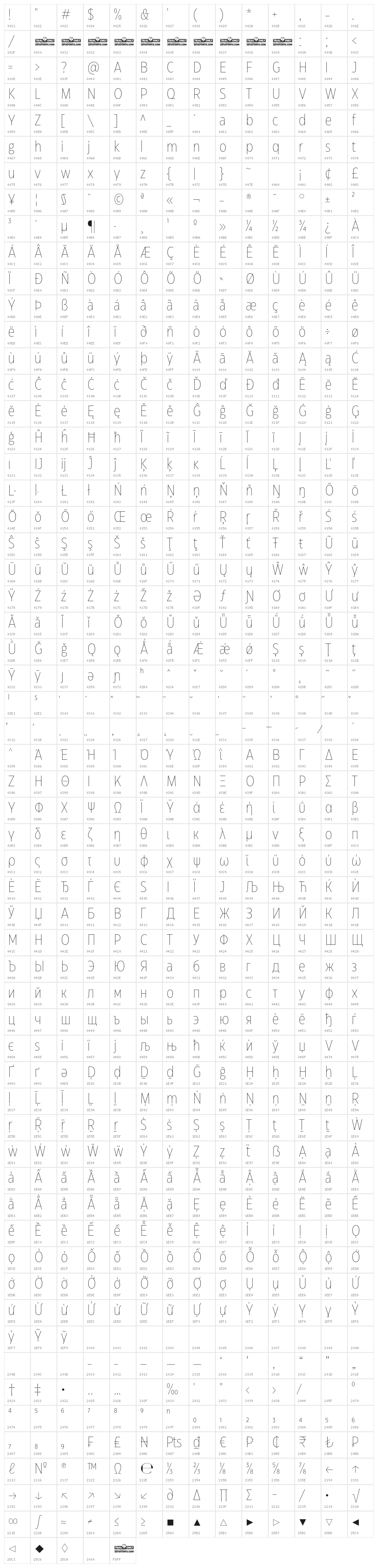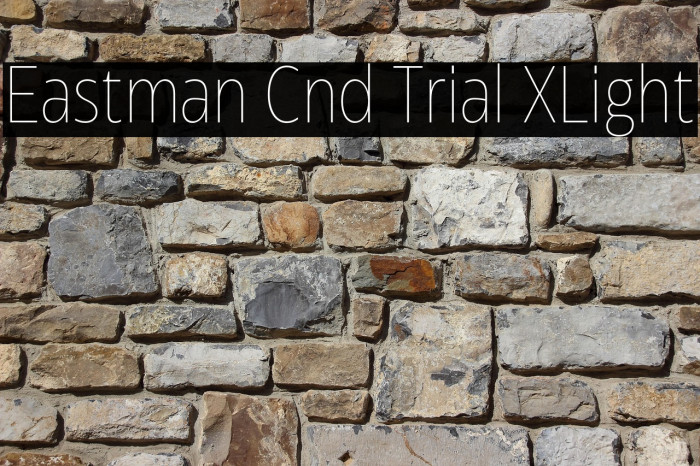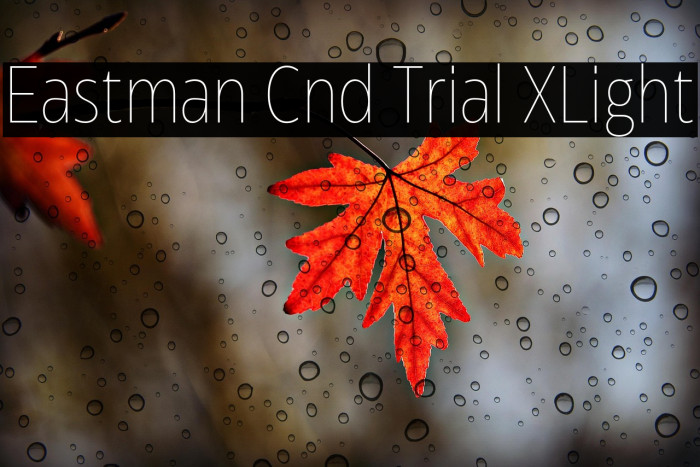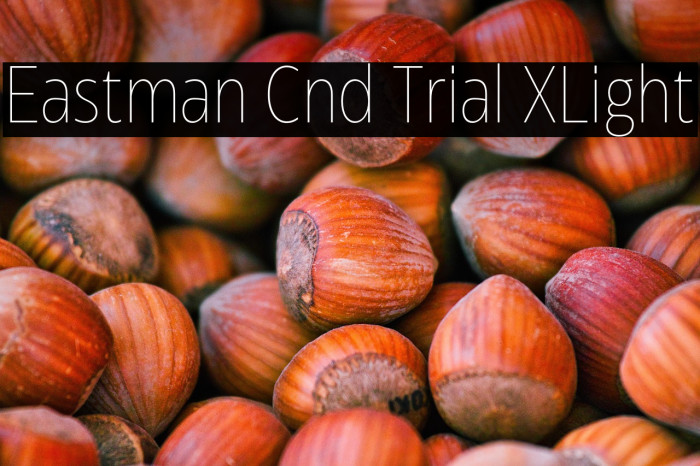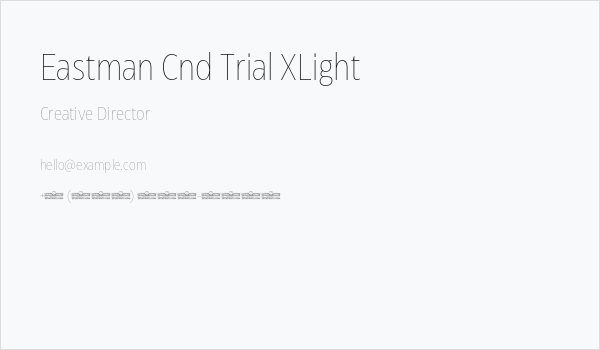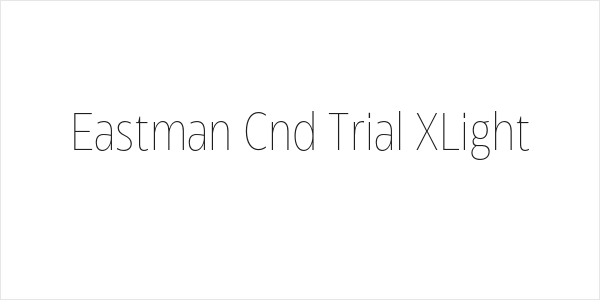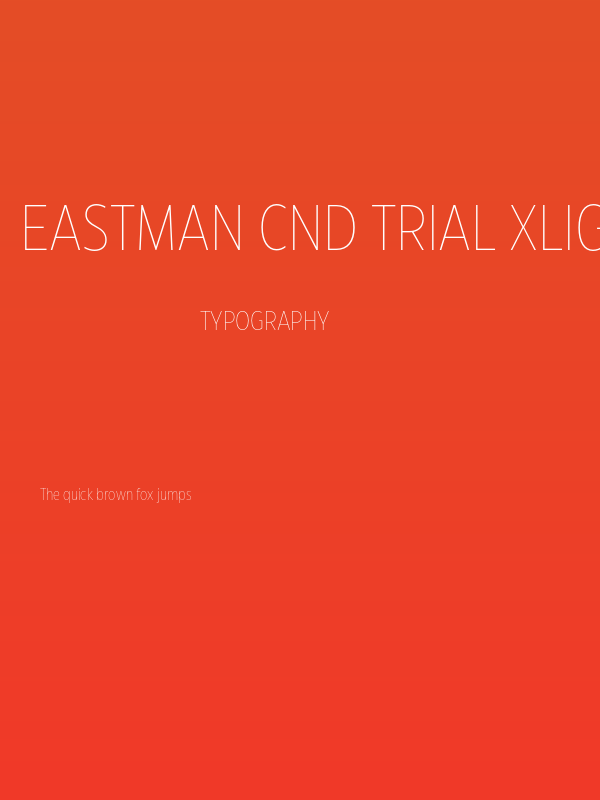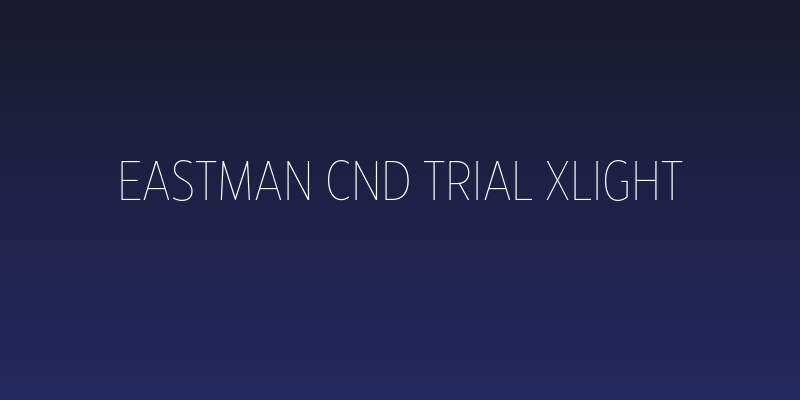
Eastman Cnd Trial XLight Font
Eastman Cnd Trial XLight Description
This font features a sleek, modern design with clean lines and a minimalist aesthetic. The characters are tall and narrow, giving it a condensed appearance that is both elegant and efficient in space usage. The strokes are consistent in weight, contributing to a uniform and harmonious look. The uppercase and lowercase letters maintain a cohesive style, with rounded edges that soften the overall geometric structure. The numerals and special characters follow the same design principles, ensuring versatility across various applications. This font is suitable for projects that require a contemporary and professional touch.
Proposed ProjectsIdeal for branding, editorial design, web design, and corporate materials where a modern and professional appearance is desired.